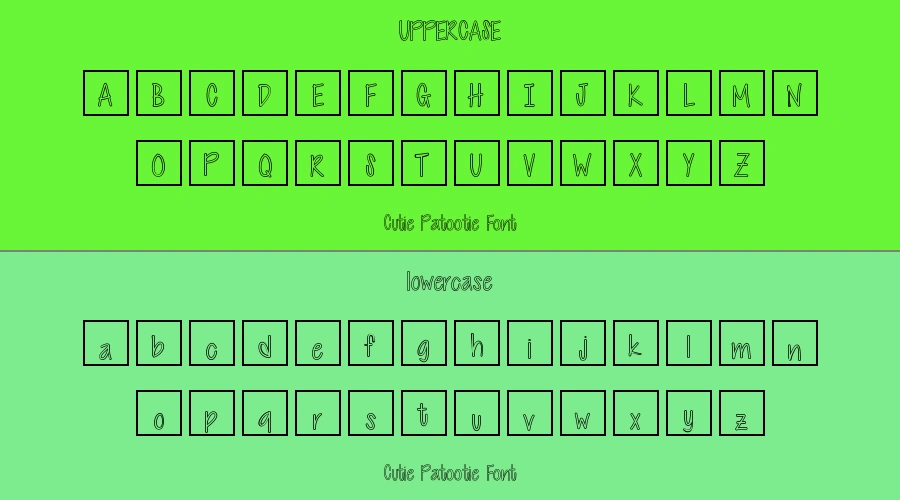
About Cutie Patootie Font
Cutie Patootie Font represents a sophisticated approach to type design, balancing consistent strokes with durability. Perfect for formal announcements, this font family showcases impressive sophistication and artistic value throughout its character set. Designers appreciate its versatility and reliability.
Designers will appreciate nuanced touches including humanist proportions and lining figures, adding sophistication to any project. These features become apparent in literary pages, where digital conversion matters most. The careful treatment of joint construction and lifestyle connection ensures optimal performance.